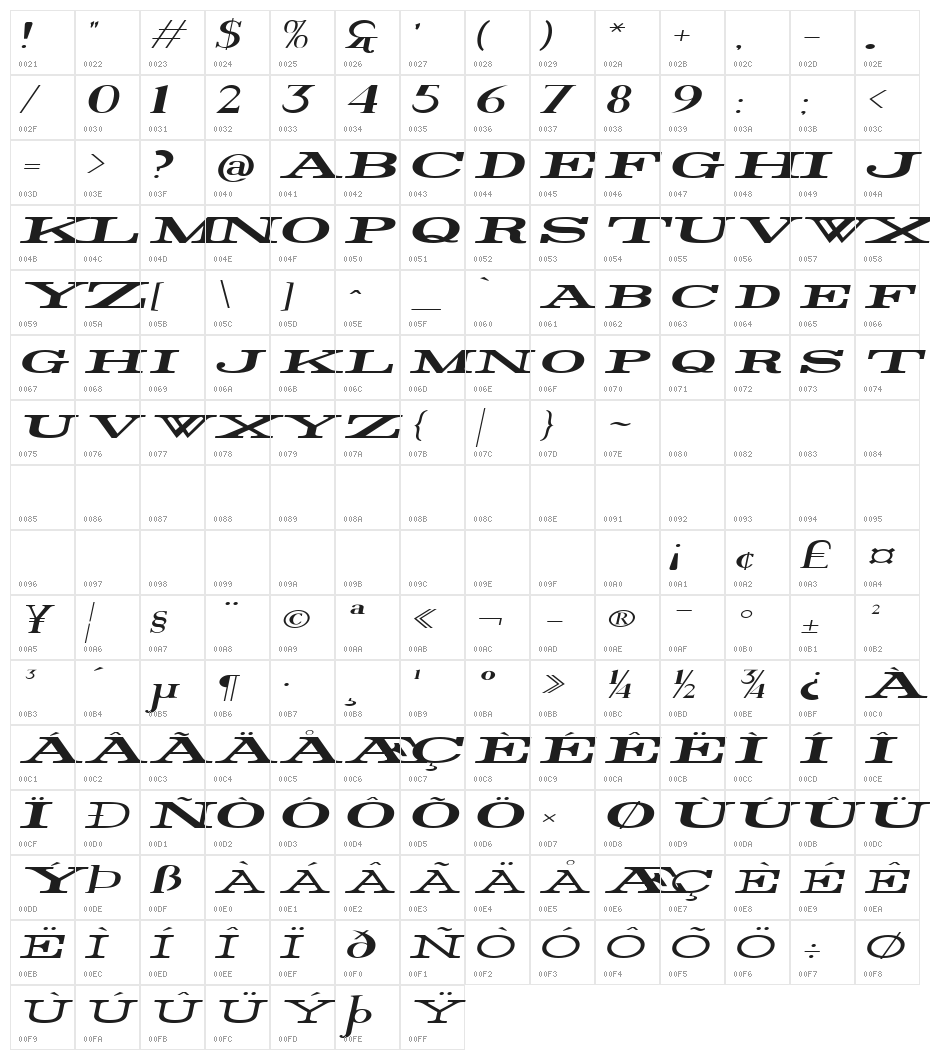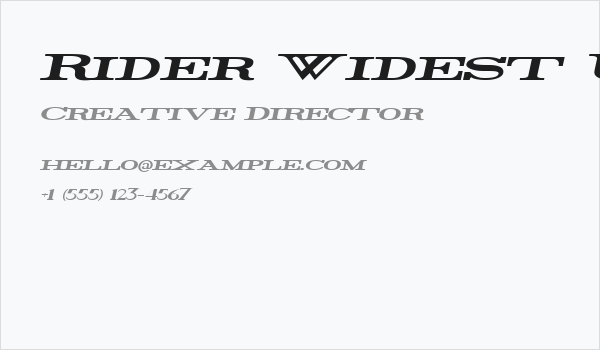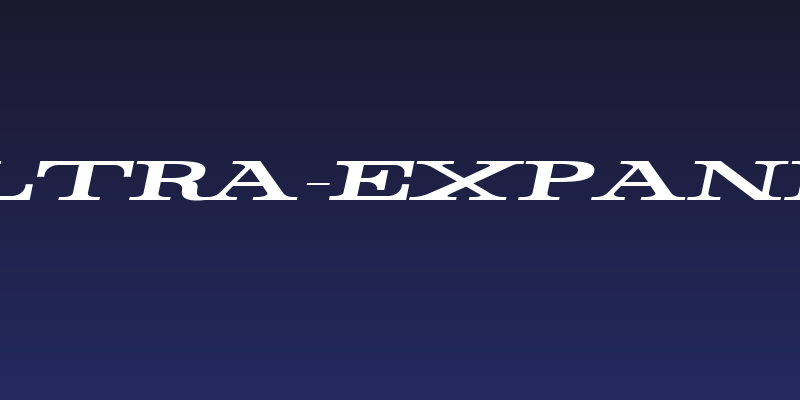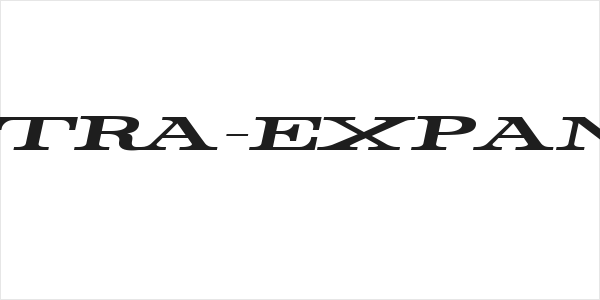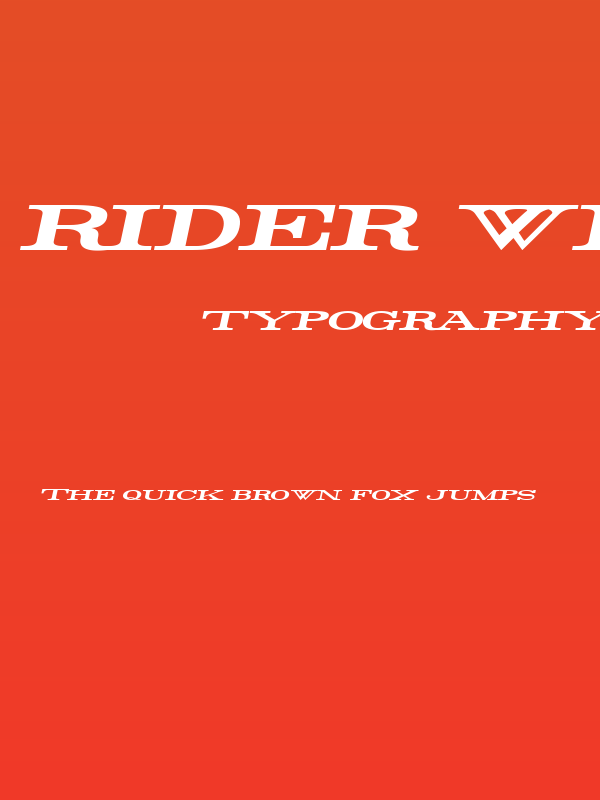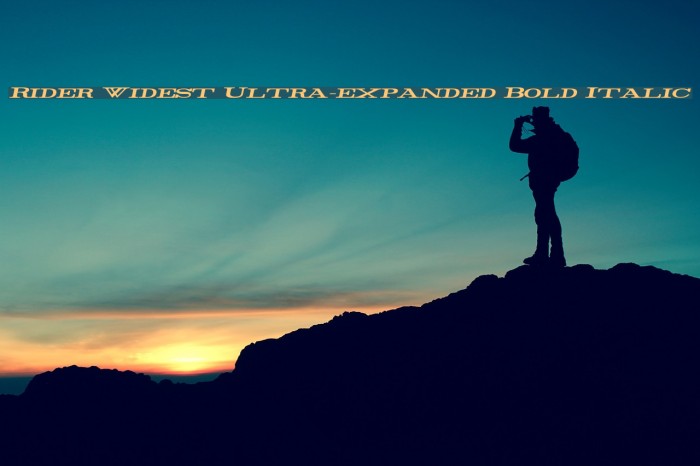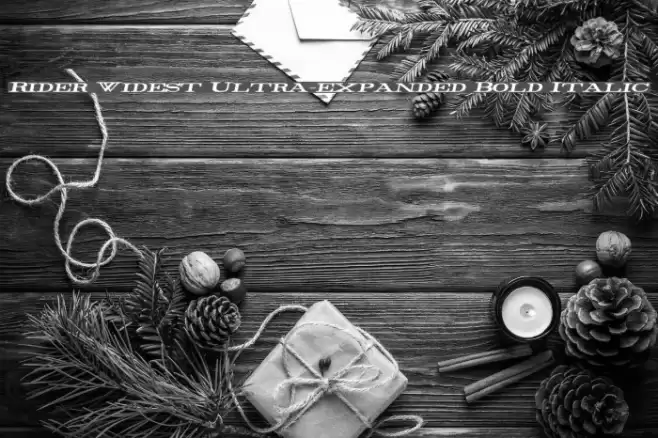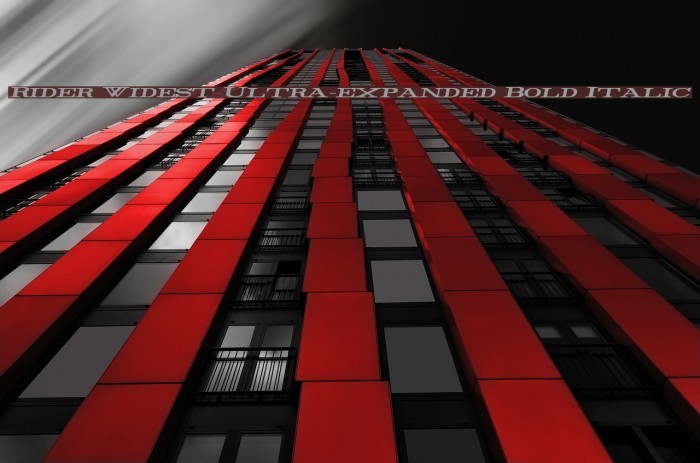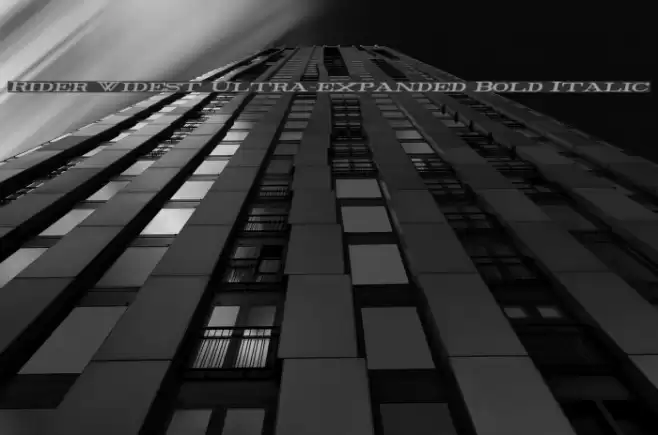
Rider Widest Ultra-expanded Bold Italic Font
Rider Widest Ultra-expanded Bold Italic Description
This font features a bold and ultra-expanded style with a distinct italic slant, giving it a dynamic and impactful appearance. The characters are wide and spacious, emphasizing a sense of grandeur and presence. The strokes are thick and consistent, providing a strong visual weight. The italic angle adds a sense of motion and elegance, making it suitable for attention-grabbing headlines or titles. The font maintains a modern aesthetic with a touch of sophistication, making it versatile for various design applications.
| Proposed Projects | Ideal for use in branding, advertising, posters, and any project requiring a strong visual impact. |